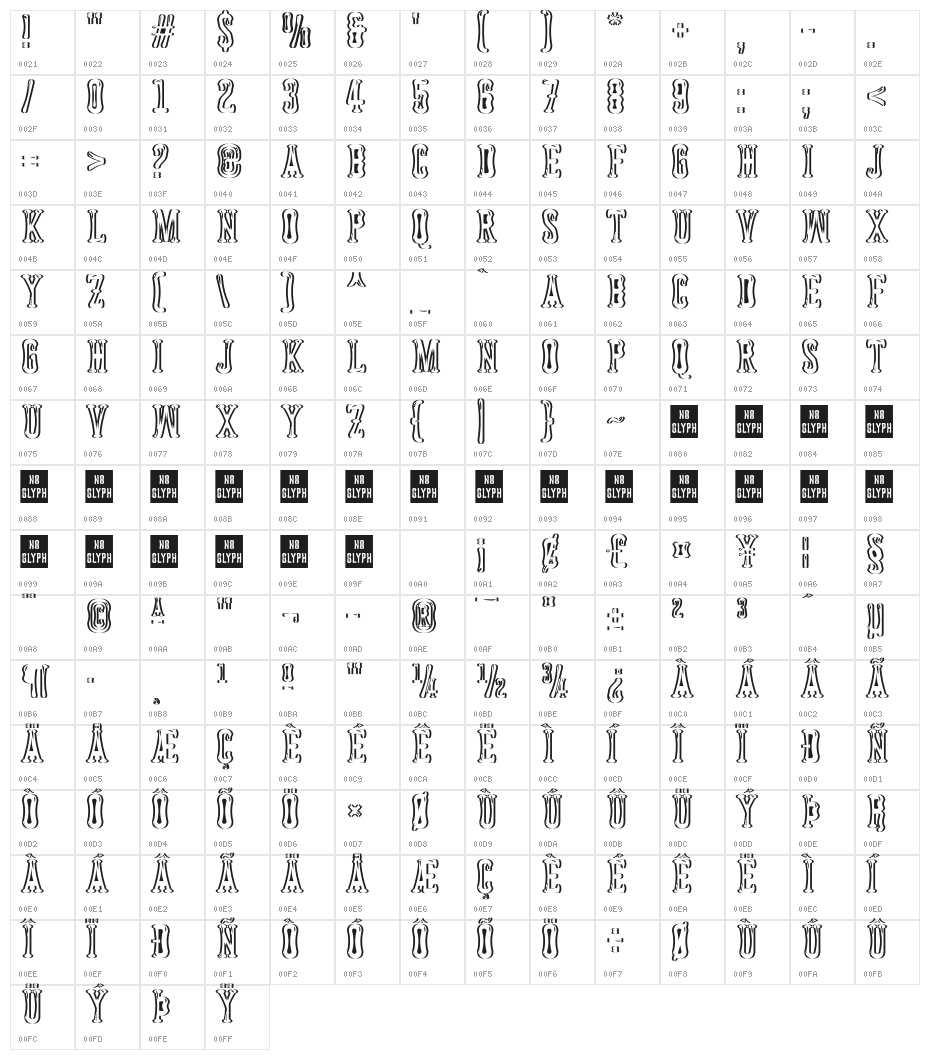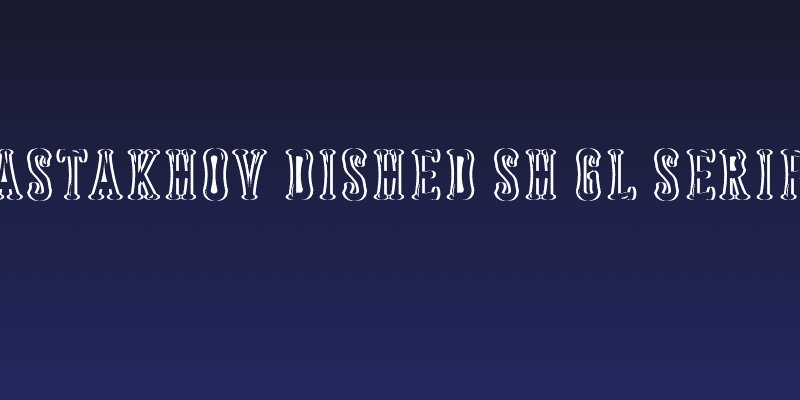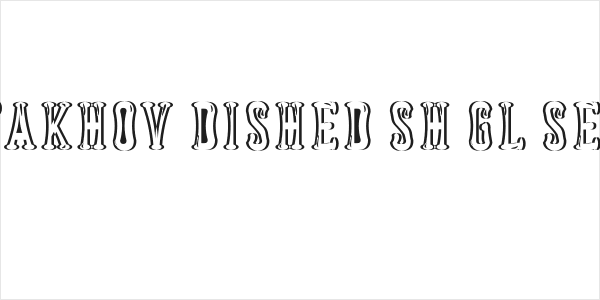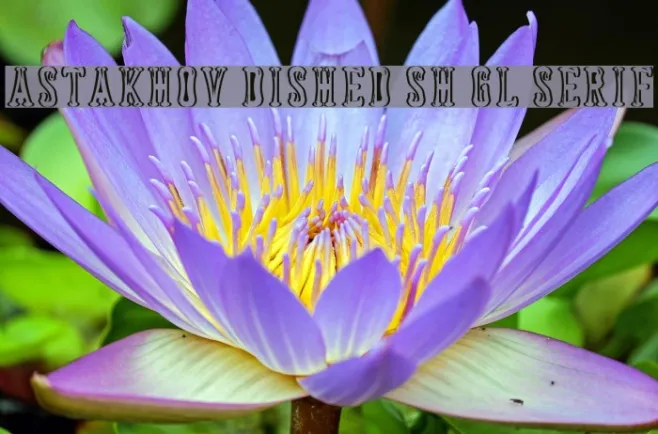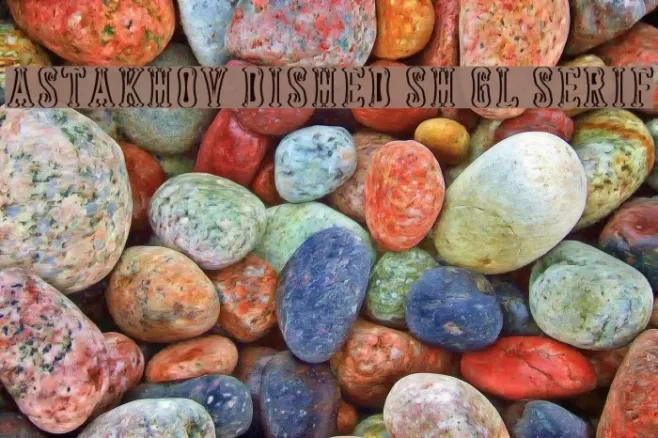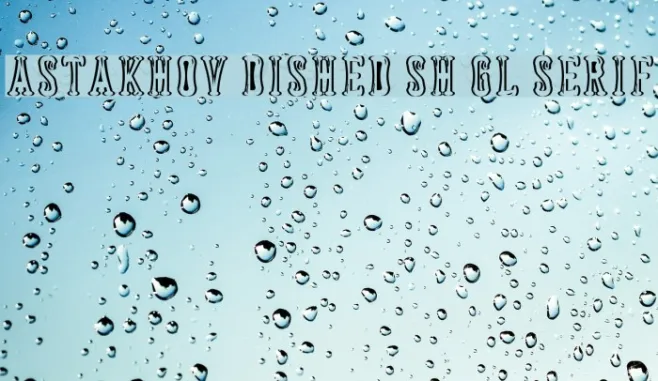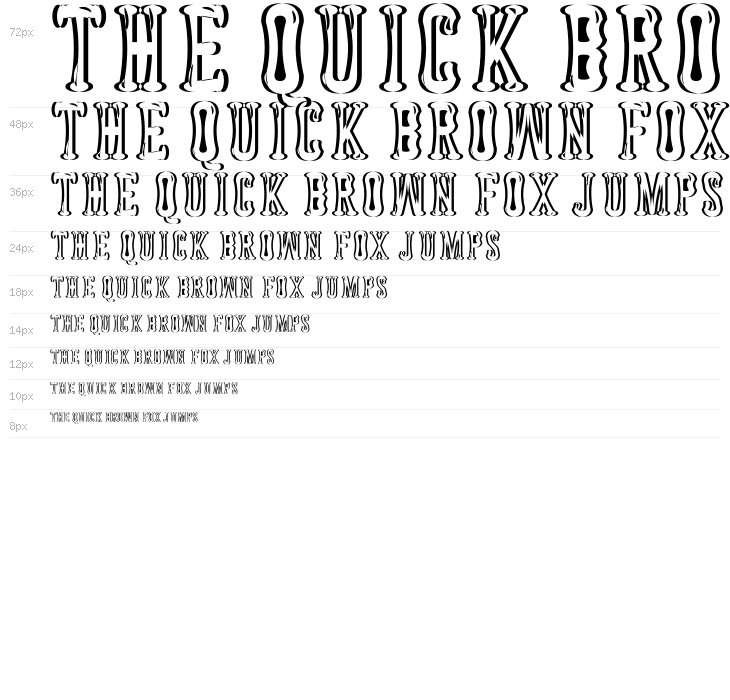
Astakhov Dished Sh Gl Serif Font
Astakhov Dished Sh Gl Serif Description
This font features a bold and decorative style with a distinct shadow effect that adds depth and dimension to each character. The serif design is characterized by its ornate and playful curves, making it stand out as a unique and eye-catching typeface. The uppercase and lowercase letters maintain a consistent style, with the numbers and special characters following suit. The intricate detailing and shadowing give it a vintage yet modern appeal, suitable for projects that require a touch of elegance and creativity.
| Overall Style | Vintage, Decorative |
| Proposed Projects | Ideal for poster designs, branding projects, headlines, and any creative work that requires a distinctive and artistic touch. |